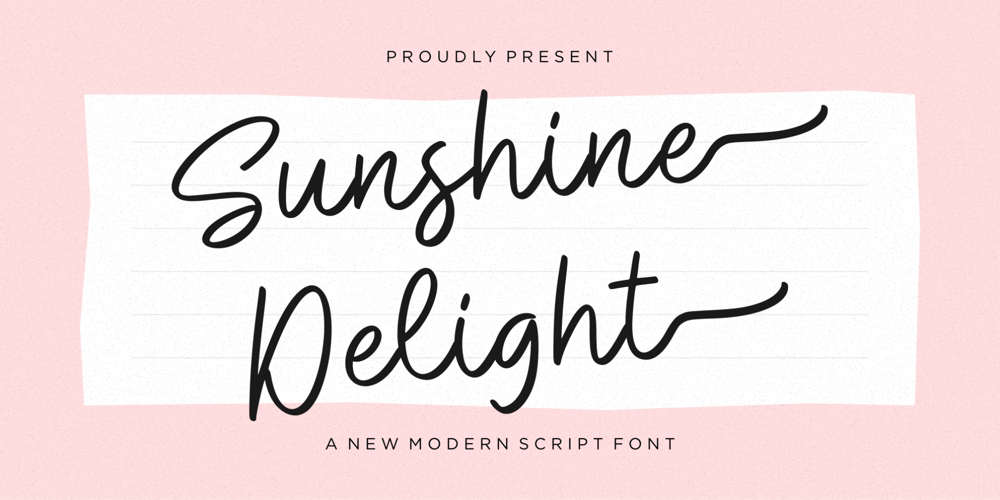
Sunshine Delight Font Family was designed by Annas Rifky Anhar and published by Bhubbiberry Studio. Sunshine Delight contains 1 styles and family package options. Illuminate your projects with Sunshine Delight, an avant-garde script font that breathes vitality into your every creation. Characterized by its flexibility, this font effortlessly conforms to your design needs, be it in crafting captivating product packaging or defining your brand’s unique persona. Sunshine Delight radiates warmth, working magic in tangible print media such as magazines, and earning accolades on digital platforms like social media.